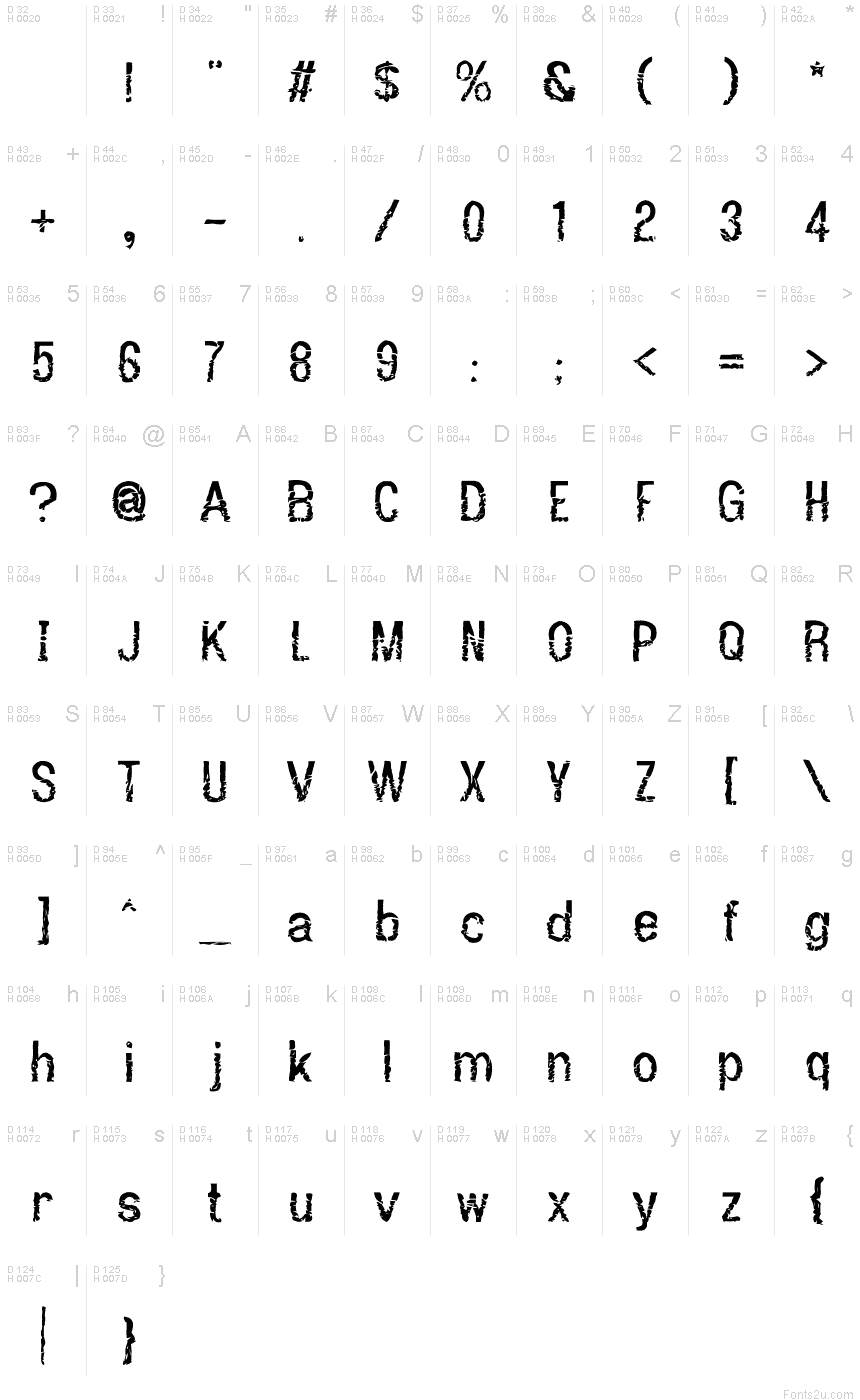
Dont Walk Run Regular
Dont Walk Run font by Darren Rigby of Starving-4 Entertainment is a free distorted display typeface that looks like it’s vibrating off the page. The letters ripple and shred along their edges, as if seen through heat waves or a panicked blur, giving every word a breathless, urgent energy. There’s a rough, scraped texture baked into the strokes, so your message feels raw and immediate rather than slick or polished.
Using Dont Walk Run, you can crank up tension on horror posters, chase-scene movie titles, haunted house flyers, game splash screens, edgy album covers, and thriller book jackets. This free font shines at large sizes where the jagged distortion and jittery rhythm can really be felt; pair it with a clean, neutral sans serif for body copy to keep everything legible while the headlines scream.
Take Enigmatic Italic, and set it upright. Dip gently into wood-chipper. Serve.
Makes a beautiful grunge font for a bad neighbourhood.